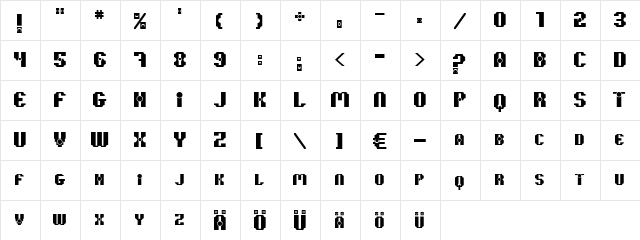
37 Kilobyte Regular
Design Context for 37 Kilobyte Typeface
37 Kilobyte takes a measured approach to typography — its balanced proportions and neutral character make it a reliable workhorse for both digital and print work.